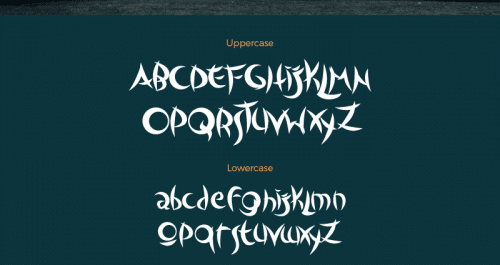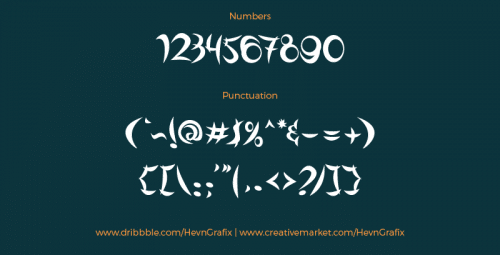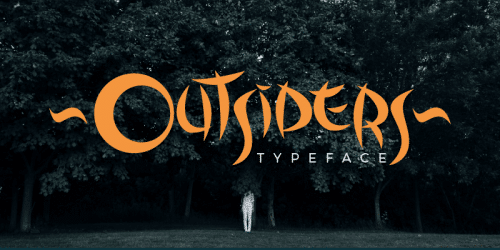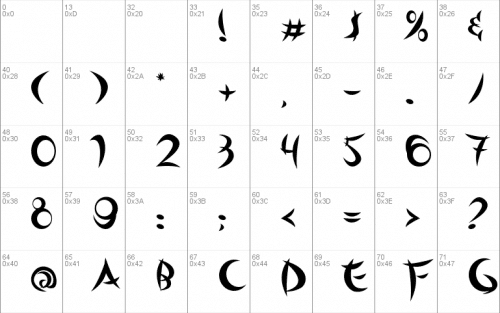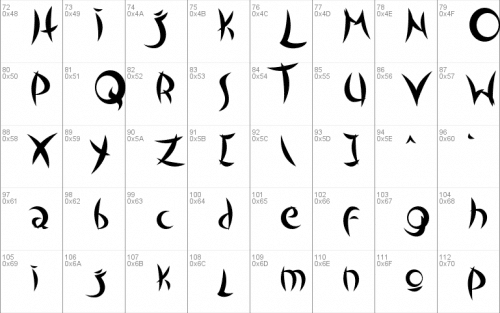
Outsiders Font is my very first font. Inspired by Outcast comic book title logo.
- Designer: Arie Hadianto
Outsiders Font is my very first font. Inspired by Outcast comic book title logo.